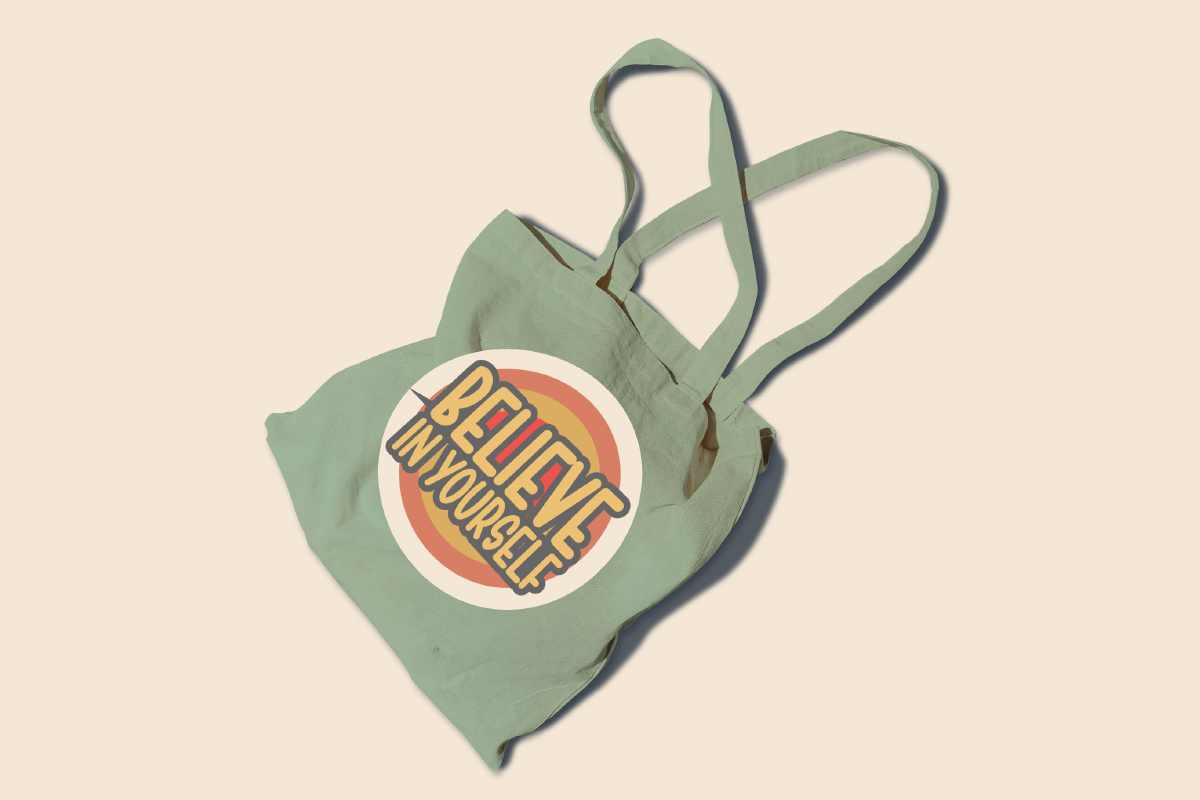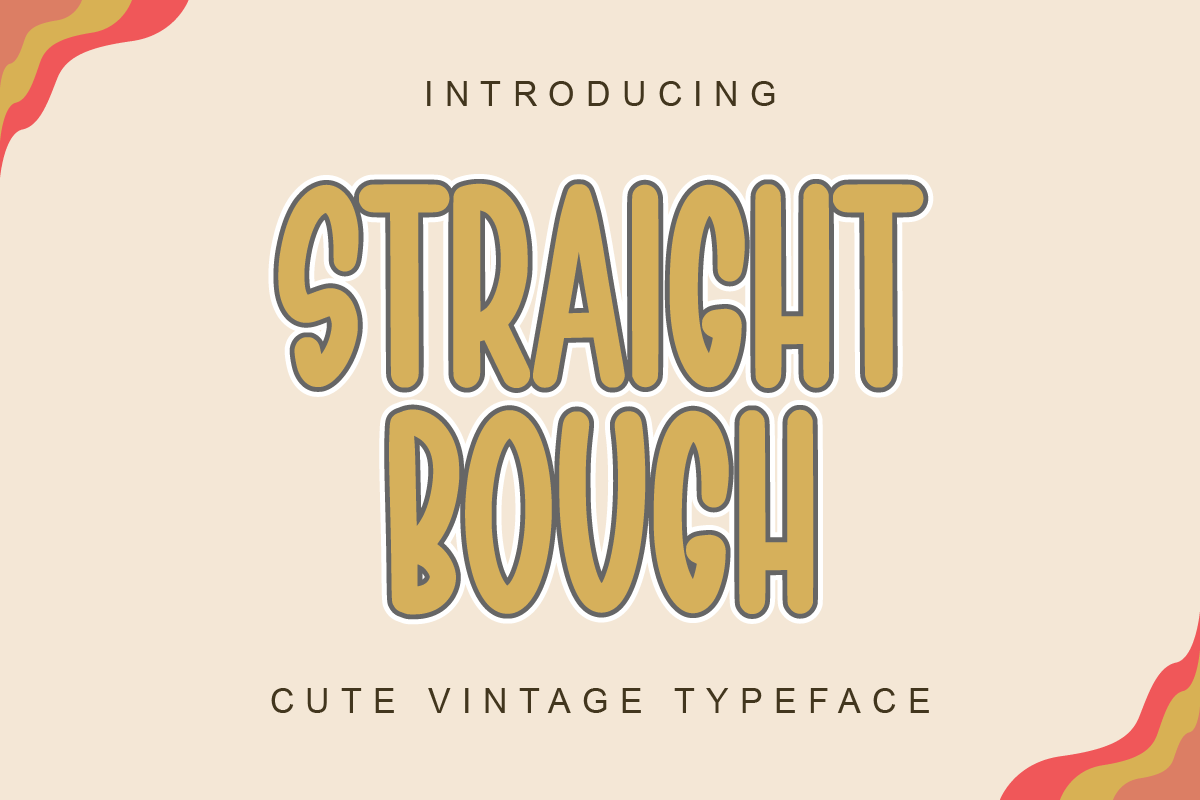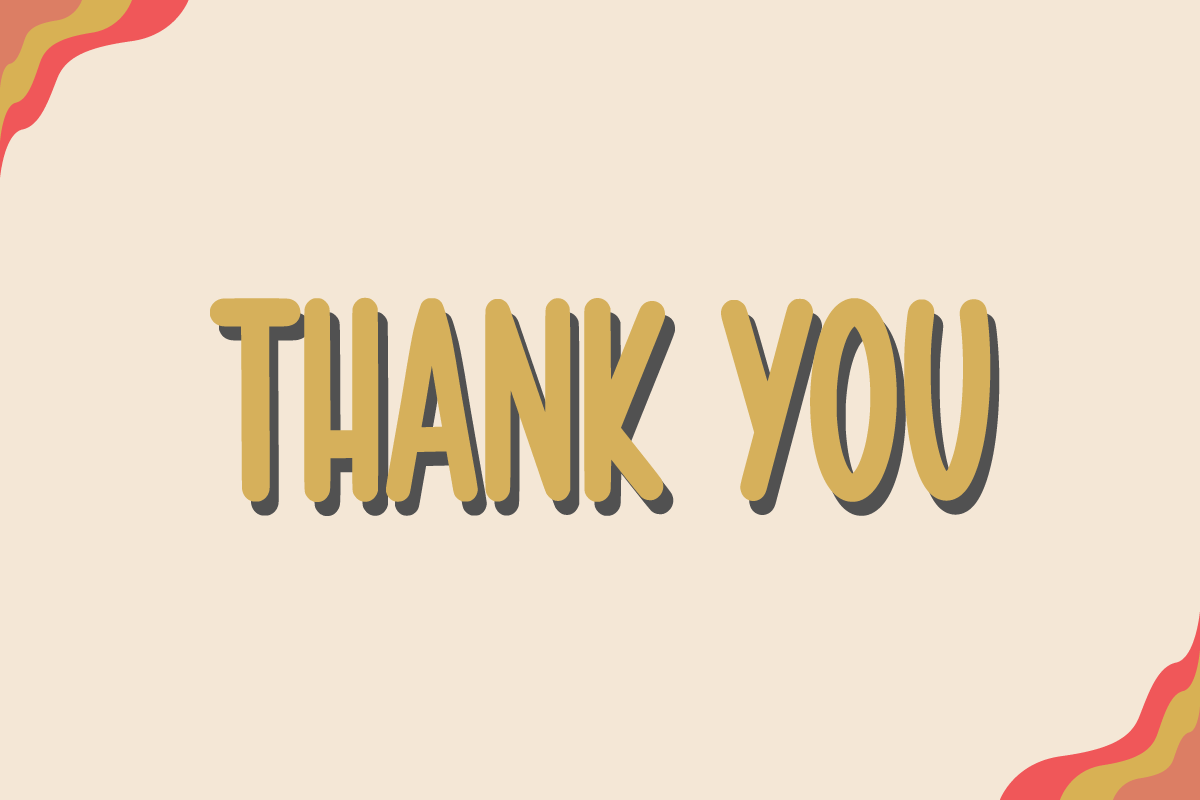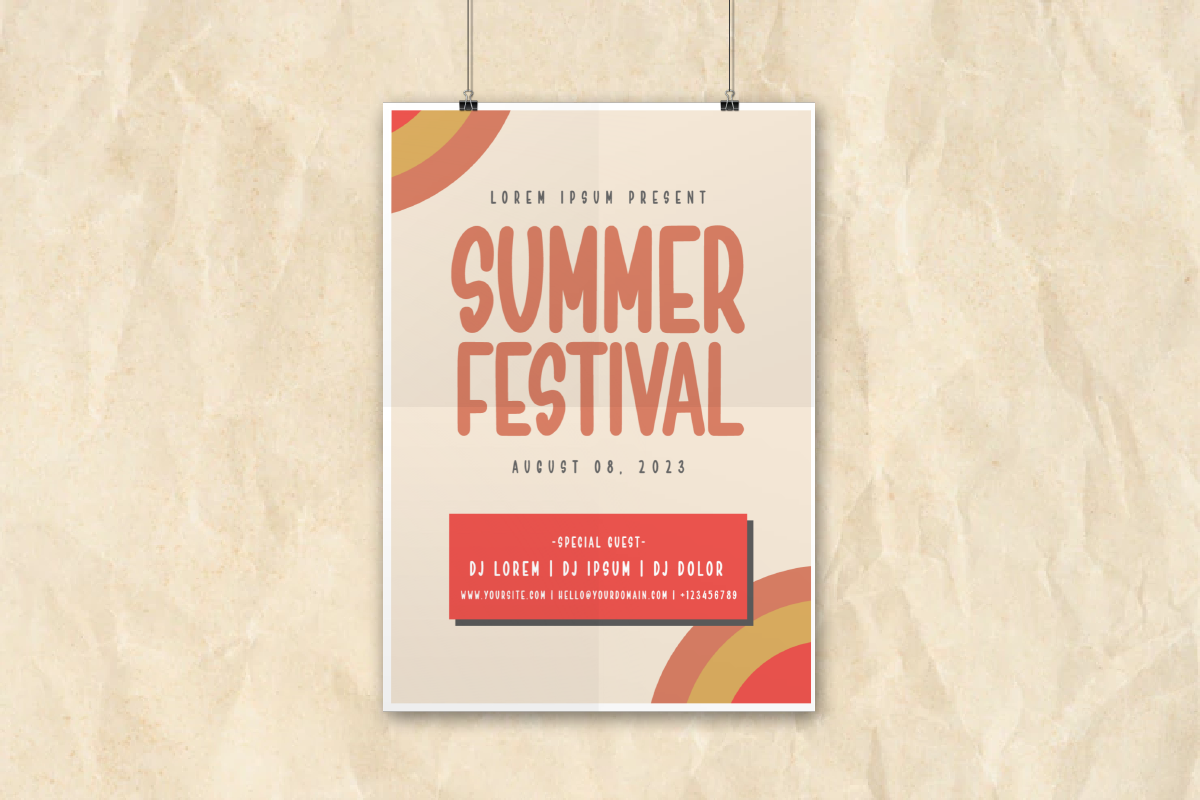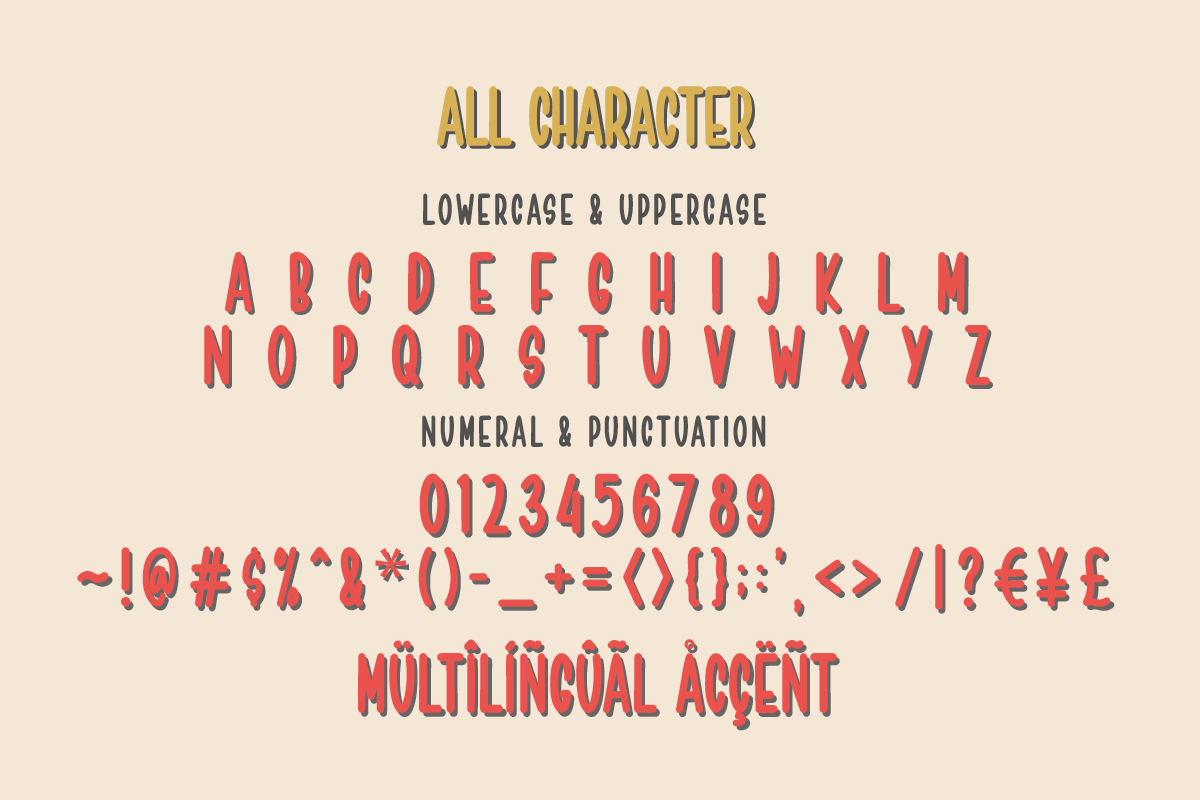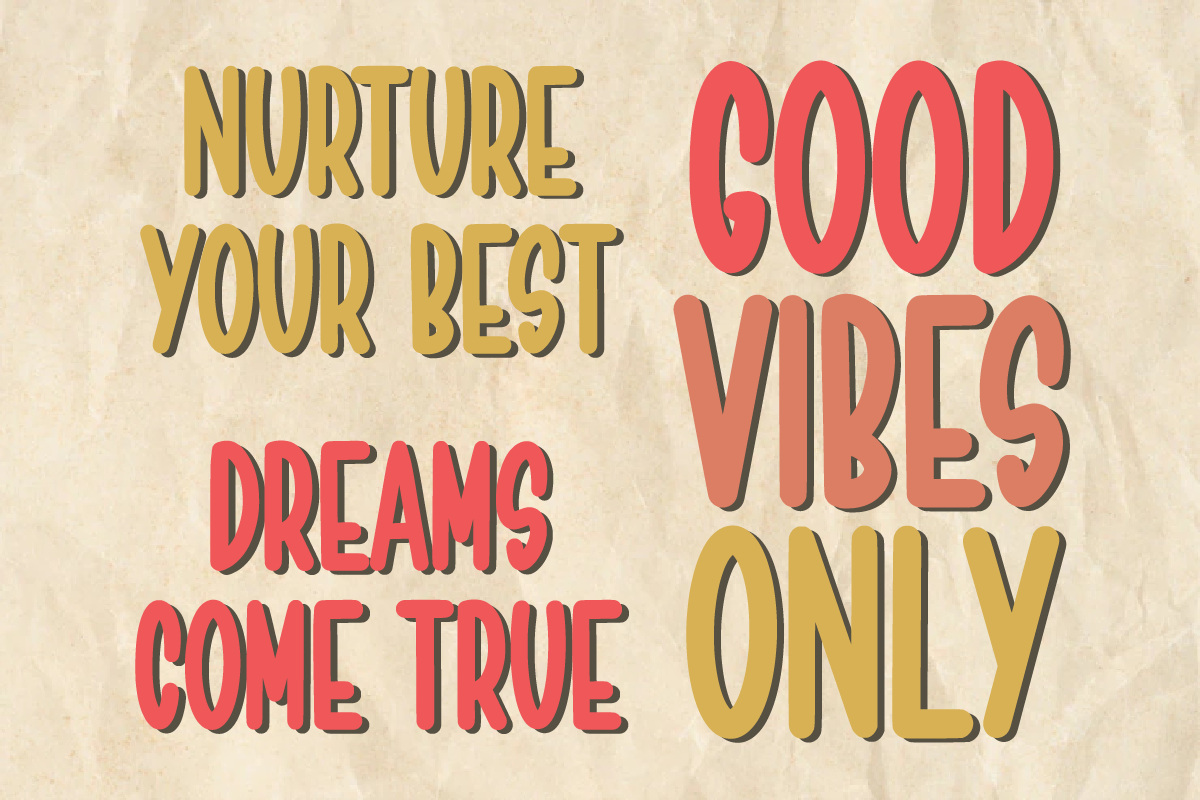
Straight Bough - Cute Vintage Font
Straight Bough is a Cute Vintage Display font that will make your designs look unique and fun. It's perfect for labels, quotes, posters, DIY projects, branding, packaging, greeting cards, websites, photography overlays, signs, window art, scrapbooking, tags and so much more!